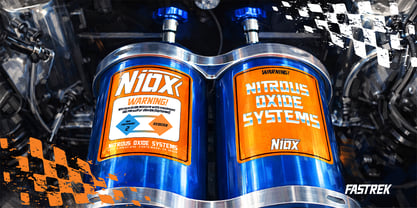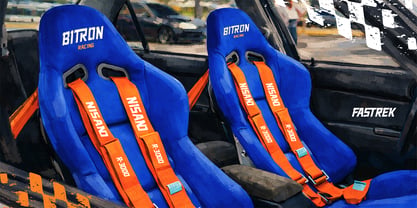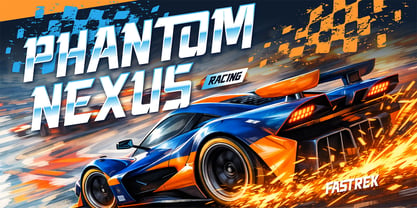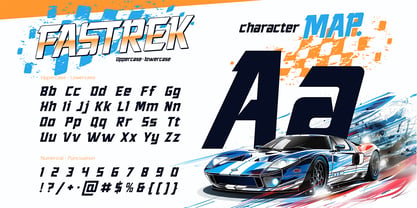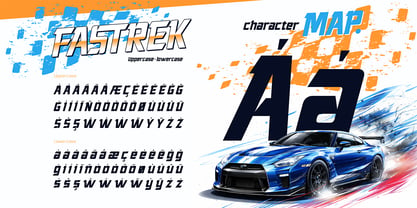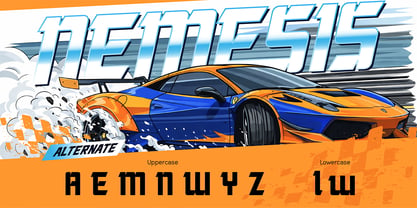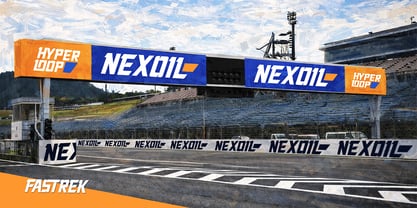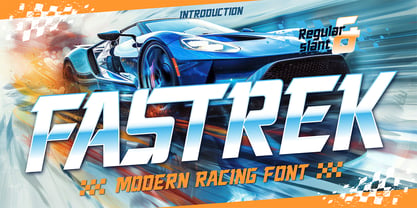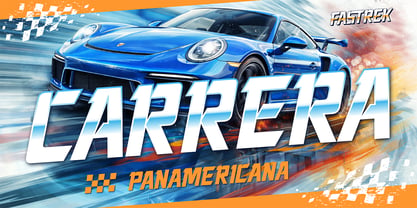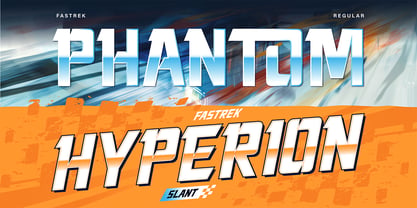
Fastrek
La familia tipográfica Fastrek fue diseñada por Meidy Meichico y publicada por Artisan Themes. Fastrek contiene 2 estilos y opciones de paquete familiar. Más información sobre esta familia
Fastrek is a high-performance display font engineered for power, velocity, and modern aesthetics. Inspired by the sleek lines of supercars and the adrenaline of the racetrack, this font is perfect for any project that needs to look fast, bold, and professional. With its sharp, angular cuts and heavy-duty structure, Fastrek ensures your headlines grab attention instantly while delivering a premium "tech-driven" vibe that stands out from the competition. The package features two distinct styles to suit your creative needs: the Regular version provides a solid and commanding presence, while the Slant version is tilted for a maximum aerodynamic feel, simulating high-speed motion. This versatile typeface includes a complete set of uppercase and lowercase letters, along with comprehensive numbers and punctuation, making it a fully functional tool for any professional layout. Designed with versatility in mind, Fastrek is the ultimate choice for automotive branding, car decals, and racing team identities. It also excels in the world of esports and gaming, providing a futuristic look for title screens and streaming overlays. Beyond the track, its bold personality is perfect for streetwear, movie posters, and eye-catching YouTube thumbnails.